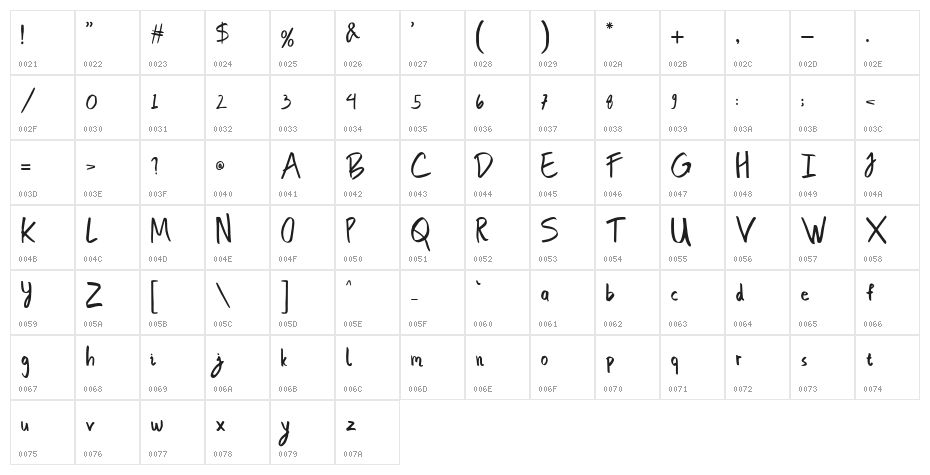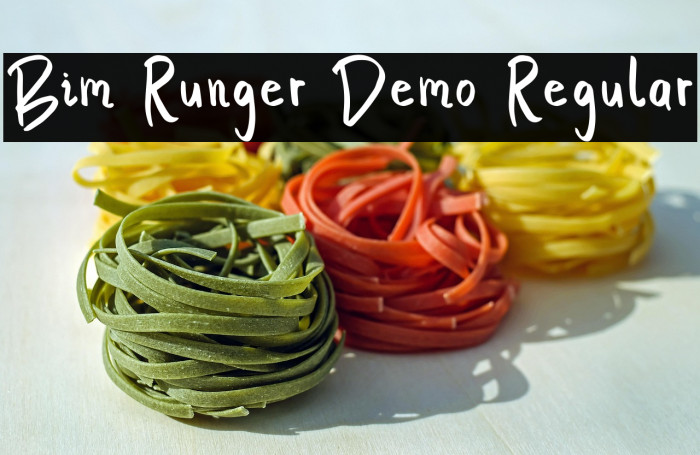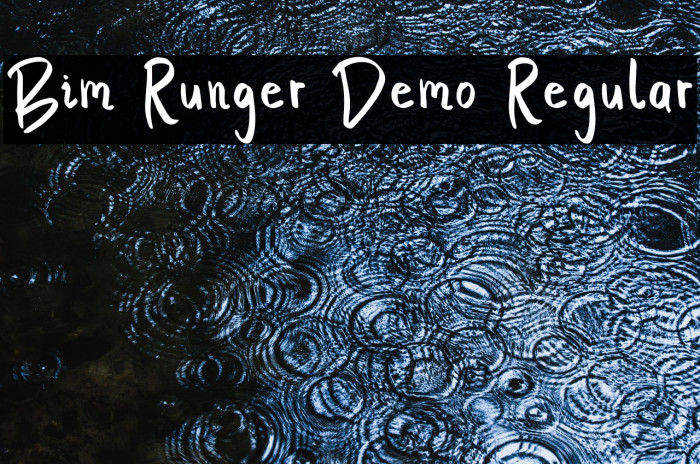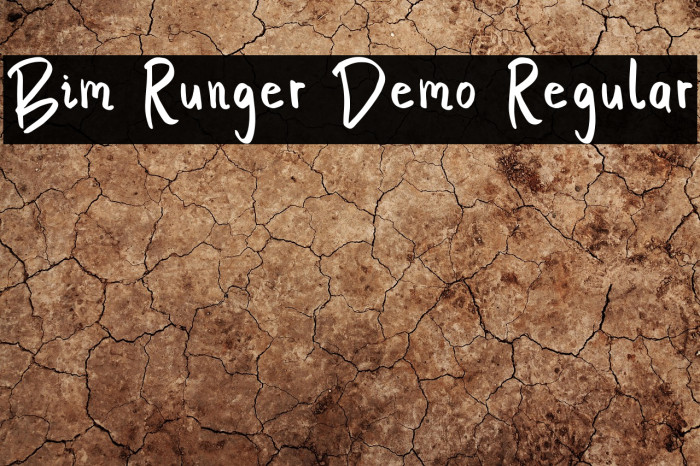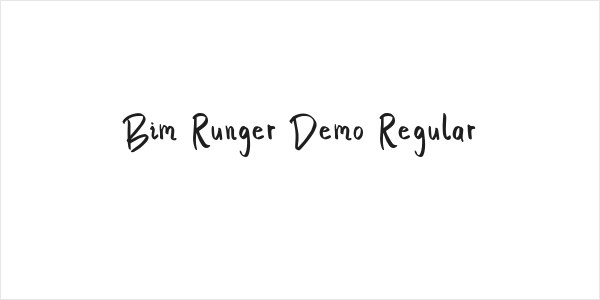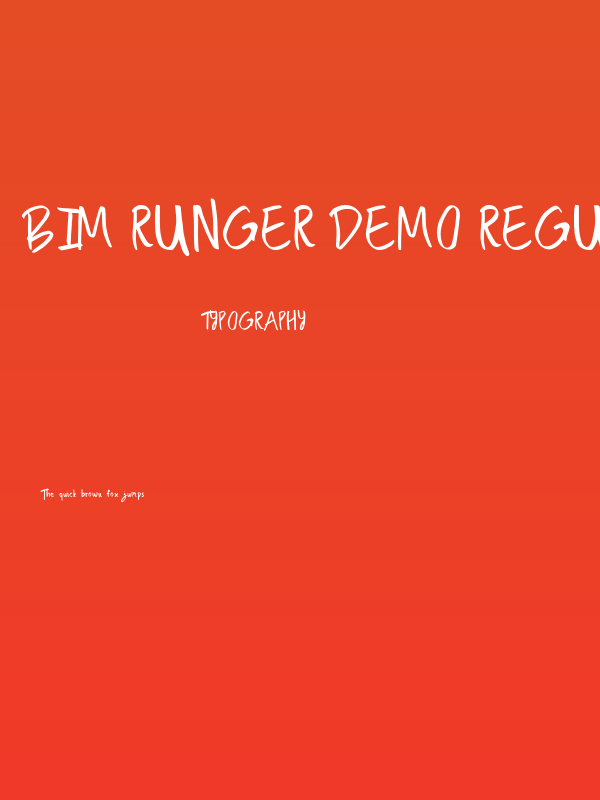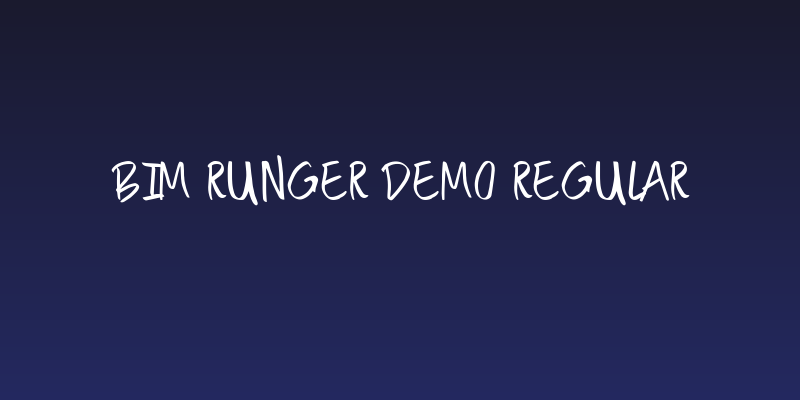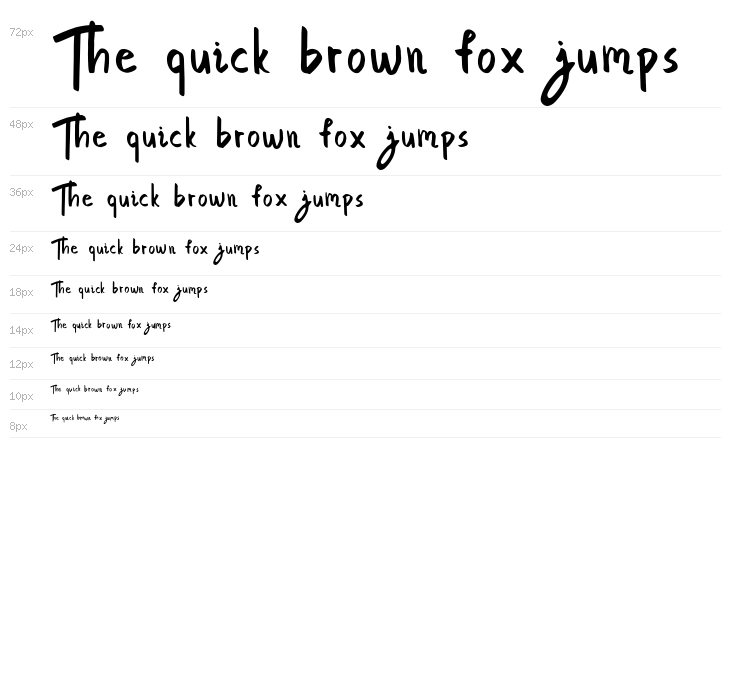
Bim Runger Demo Regular Font
Bim Runger Demo Regular Description
This font exhibits a playful and informal handwritten style, characterized by its irregular and dynamic strokes. The letters have a casual, organic feel, with varying heights and angles that give it a lively appearance. The uppercase letters are bold and slightly exaggerated, while the lowercase letters maintain a consistent flow, adding to the font's charm. The numerals are clear and legible, matching the overall whimsical style. Special characters are creatively integrated, maintaining the font's unique personality.